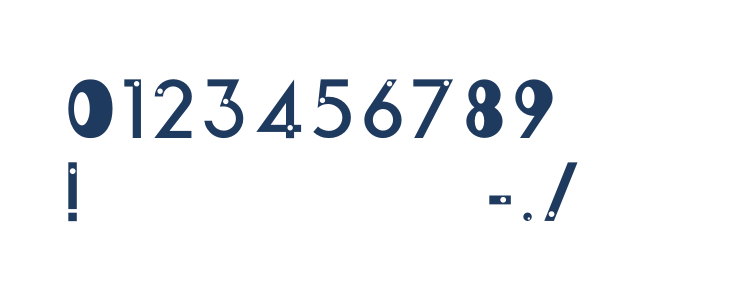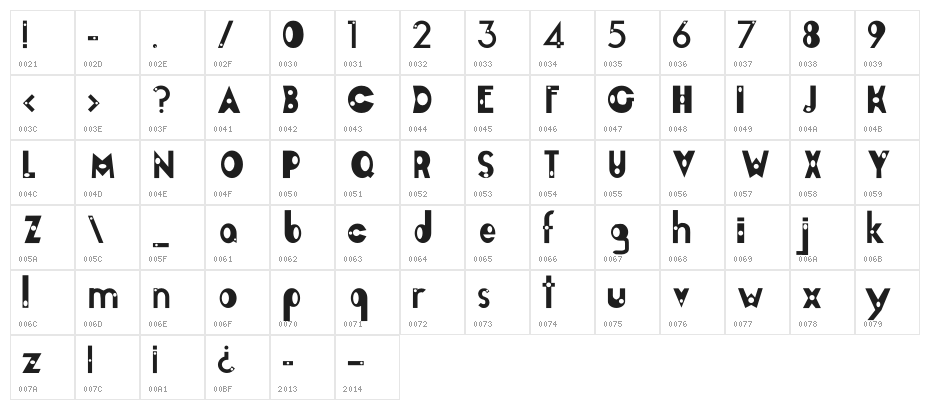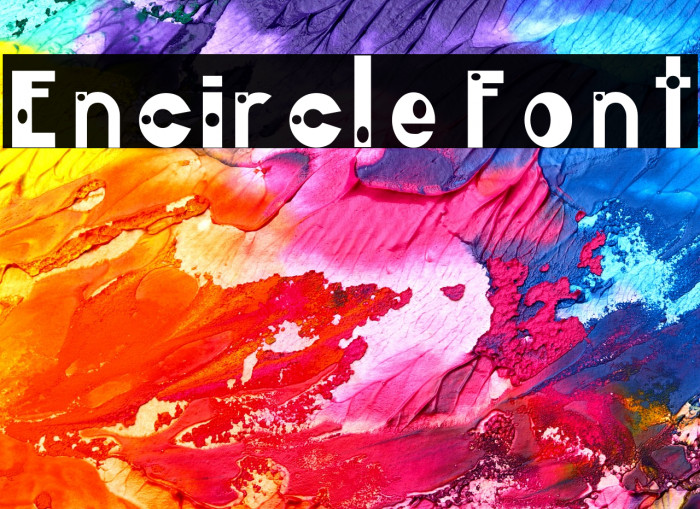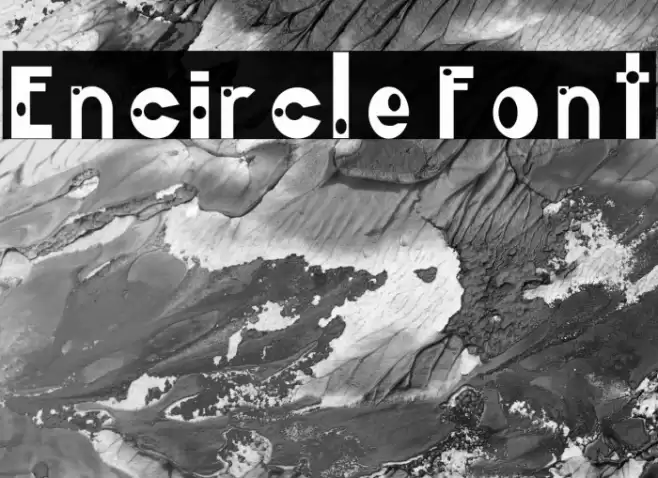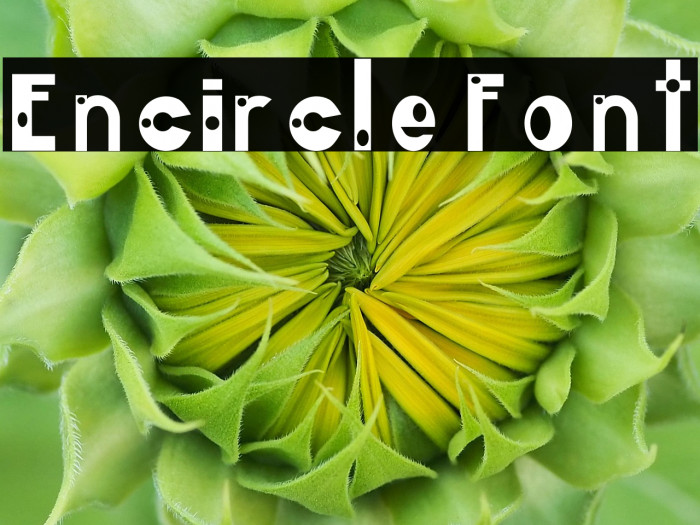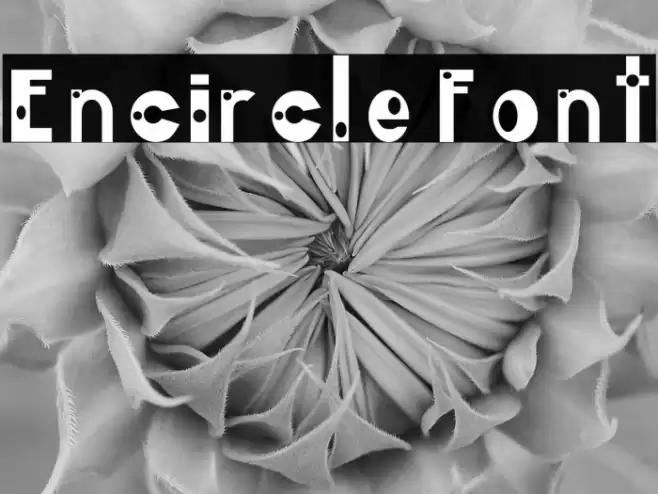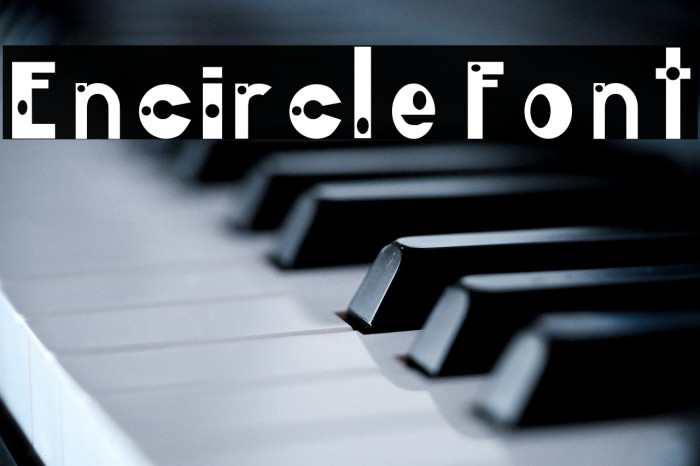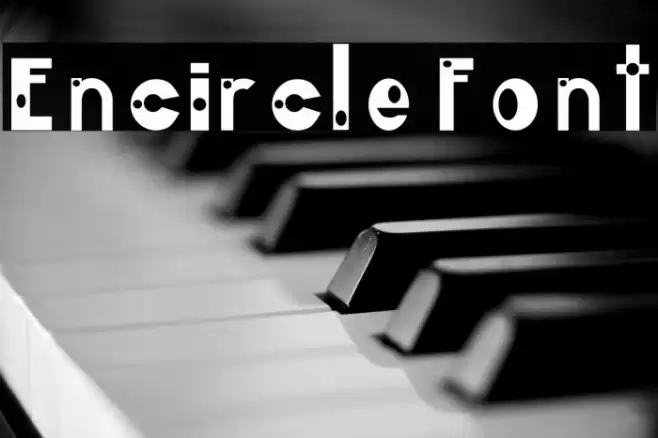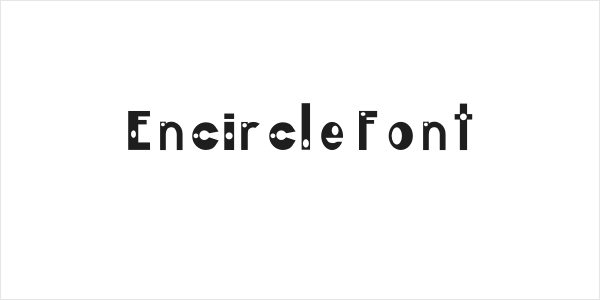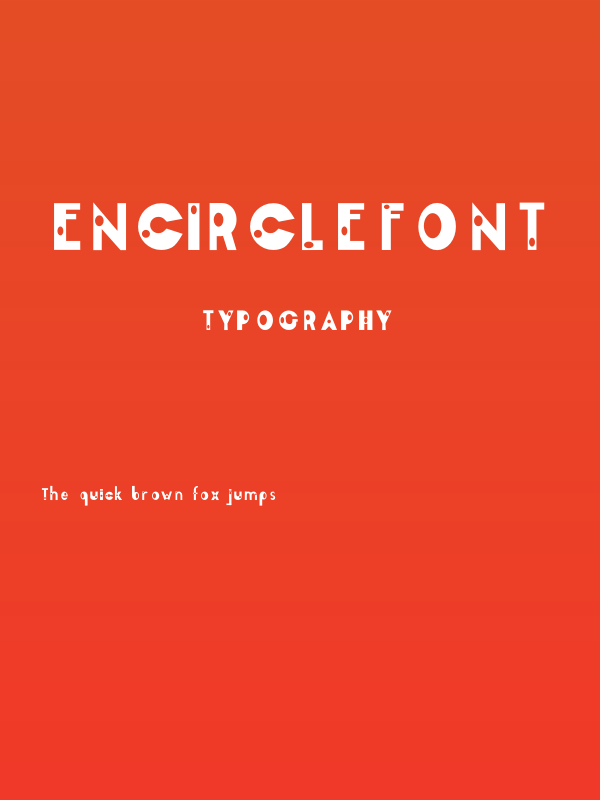
EncircleFont Font
EncircleFont Description
This font features a unique and playful design with circular cutouts integrated into each character, creating a distinctive and eye-catching appearance. The letters are bold and geometric, with a modern aesthetic that combines both straight lines and curves. The uppercase and lowercase letters maintain a consistent style, while the numbers and special characters also incorporate the circular motif. This font is ideal for projects that require a fun and contemporary look, making it suitable for creative branding, posters, and digital media.
| Proposed Projects | Creative branding, posters, digital media, children's books, and playful advertisements. |